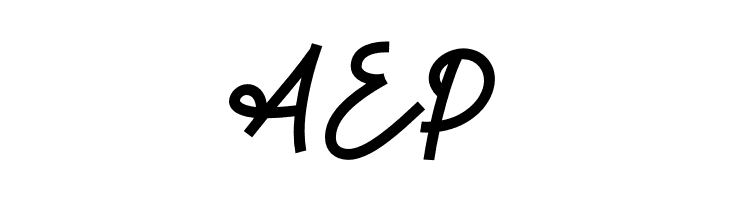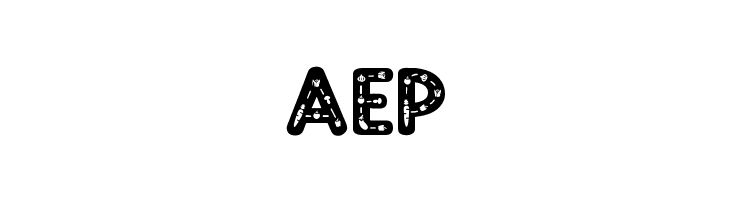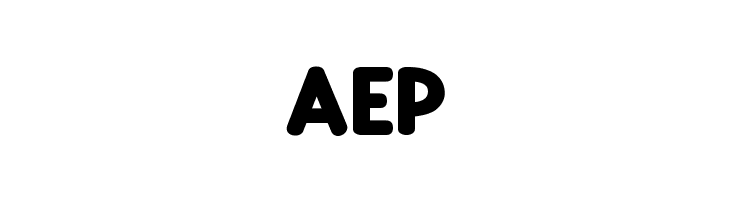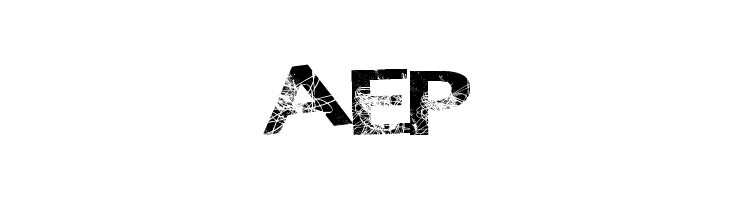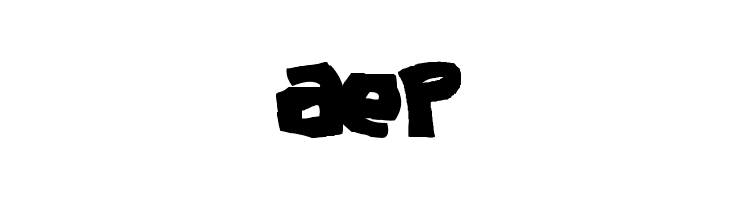
A lively, cursive script font with bold, flowing strokes.
A playful, decorative font with bold letters and floral embellishments.
A bold, decorative font with floral embellishments on uppercase letters.
A bold, distressed font with a textured, cracked appearance.
A lively and dynamic script font with fluid, cursive letterforms.
A bold, rounded font with smooth curves and a playful style.
A bold, decorative font with leaf-patterned characters.